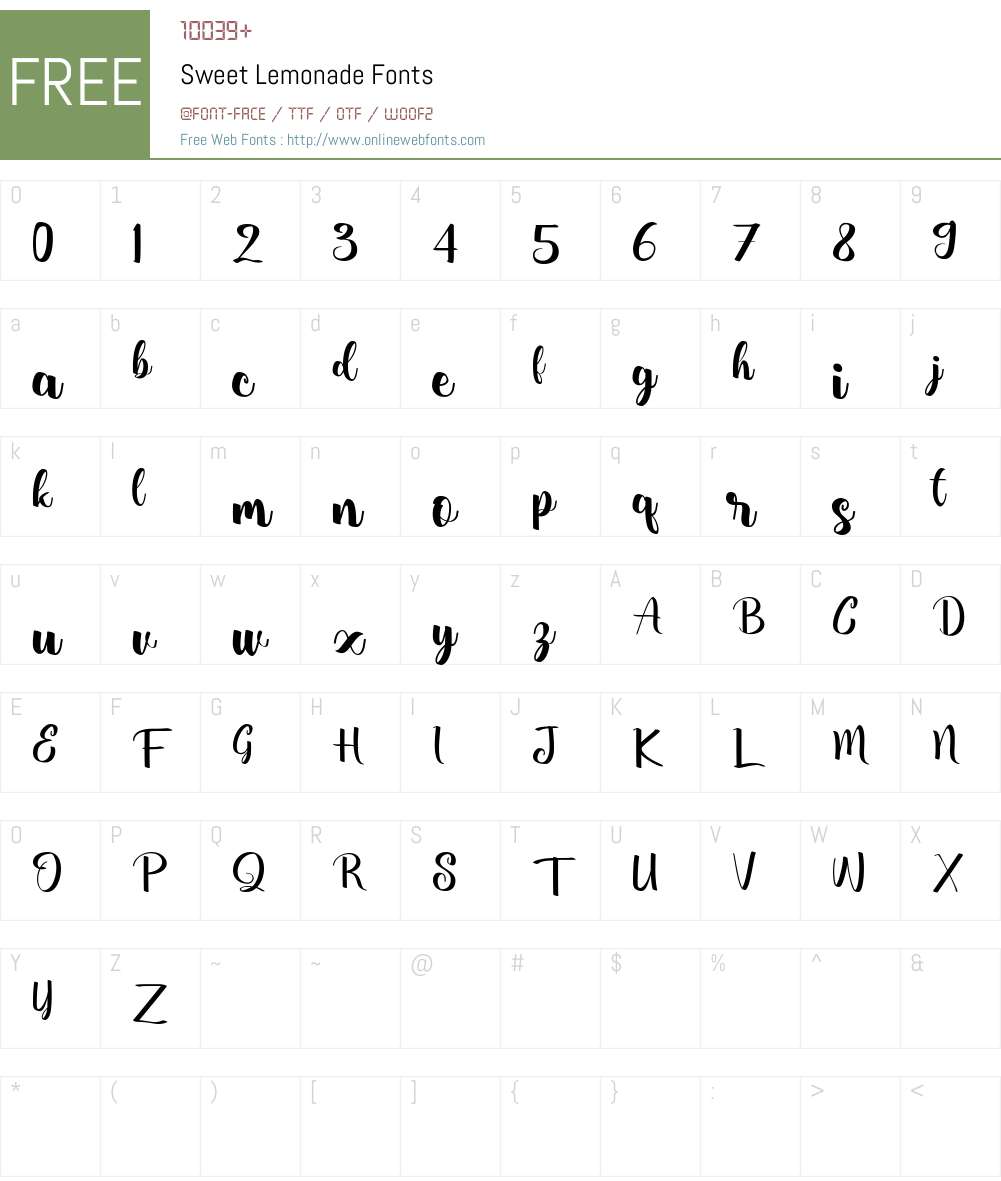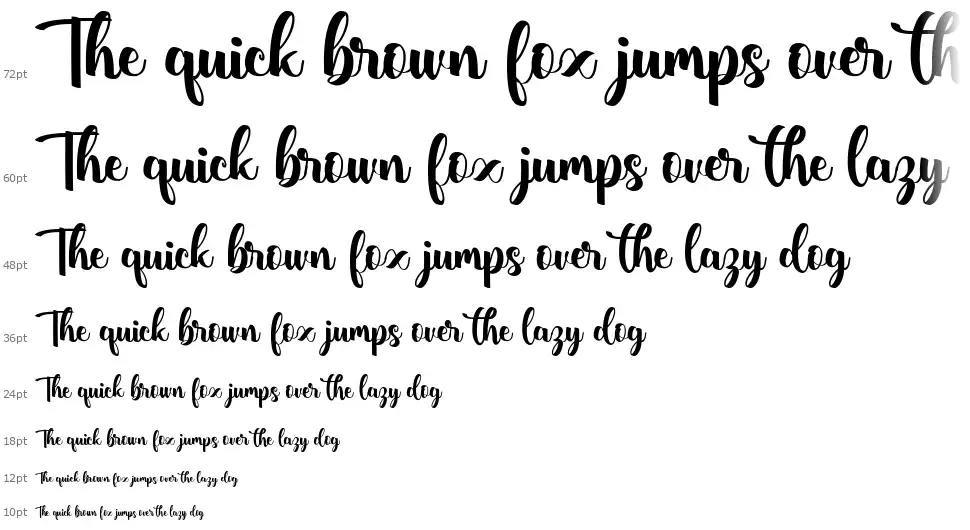
Sweet Lemonade Font . It can be used for various. 15,529 downloads (7 yesterday) free for personal use. ️ customize your own preview on ffonts.net to make. the sweet lemonade font contains 296 beautifully designed characters. download sweet lemonade font from free cdn or use it on your website as webfont. we are providing sweet lemonade font here for free that includes free font, script font, handwritten font, brush font, ttf font, & unique typeface. Moreover, you can embed it to your. 196,938 downloads (4 yesterday) free for personal use. — sweet lemonade is a handwritten font that fit for food and drink project stuff. download free sweet lemonade font, view its.
196,938 downloads (4 yesterday) free for personal use. ️ customize your own preview on ffonts.net to make. download sweet lemonade font from free cdn or use it on your website as webfont. — sweet lemonade is a handwritten font that fit for food and drink project stuff. the sweet lemonade font contains 296 beautifully designed characters. 15,529 downloads (7 yesterday) free for personal use. It can be used for various. Moreover, you can embed it to your. we are providing sweet lemonade font here for free that includes free font, script font, handwritten font, brush font, ttf font, & unique typeface. download free sweet lemonade font, view its.
Sweet Lemonade Font download sweet lemonade font from free cdn or use it on your website as webfont. download sweet lemonade font from free cdn or use it on your website as webfont. we are providing sweet lemonade font here for free that includes free font, script font, handwritten font, brush font, ttf font, & unique typeface. download free sweet lemonade font, view its. 15,529 downloads (7 yesterday) free for personal use. Moreover, you can embed it to your. 196,938 downloads (4 yesterday) free for personal use. It can be used for various. — sweet lemonade is a handwritten font that fit for food and drink project stuff. the sweet lemonade font contains 296 beautifully designed characters. ️ customize your own preview on ffonts.net to make.
Sweet Lemonade Font by Damarletter · Creative Fabrica Sweet Lemonade Font download free sweet lemonade font, view its. download sweet lemonade font from free cdn or use it on your website as webfont. we are providing sweet lemonade font here for free that includes free font, script font, handwritten font, brush font, ttf font, & unique typeface. ️ customize your own preview on ffonts.net to make. Moreover, you. Sweet Lemonade Font.
Lemonade (Font) by KA Designs · Creative Fabrica Handwritten script Sweet Lemonade Font ️ customize your own preview on ffonts.net to make. we are providing sweet lemonade font here for free that includes free font, script font, handwritten font, brush font, ttf font, & unique typeface. — sweet lemonade is a handwritten font that fit for food and drink project stuff. 15,529 downloads (7 yesterday) free for personal use. It can. Sweet Lemonade Font.
Sweet Lemonade Font › Fontesk Sweet Lemonade Font Moreover, you can embed it to your. ️ customize your own preview on ffonts.net to make. It can be used for various. download free sweet lemonade font, view its. 196,938 downloads (4 yesterday) free for personal use. the sweet lemonade font contains 296 beautifully designed characters. 15,529 downloads (7 yesterday) free for personal use. download sweet. Sweet Lemonade Font.
Make Lemonade Font Script Fonts Creative Market Sweet Lemonade Font download sweet lemonade font from free cdn or use it on your website as webfont. 196,938 downloads (4 yesterday) free for personal use. the sweet lemonade font contains 296 beautifully designed characters. ️ customize your own preview on ffonts.net to make. we are providing sweet lemonade font here for free that includes free font, script font,. Sweet Lemonade Font.
Sweet Lemonade Handwritten Typewriter Font So Fontsy Sweet Lemonade Font — sweet lemonade is a handwritten font that fit for food and drink project stuff. Moreover, you can embed it to your. the sweet lemonade font contains 296 beautifully designed characters. 196,938 downloads (4 yesterday) free for personal use. we are providing sweet lemonade font here for free that includes free font, script font, handwritten font,. Sweet Lemonade Font.
Sweet Lemonade font by Ardian Nuvianto FontRiver Sweet Lemonade Font download sweet lemonade font from free cdn or use it on your website as webfont. 196,938 downloads (4 yesterday) free for personal use. download free sweet lemonade font, view its. ️ customize your own preview on ffonts.net to make. It can be used for various. the sweet lemonade font contains 296 beautifully designed characters. we. Sweet Lemonade Font.
The Sweet Lemonade is a beautiful, smooth, delicious handwritten font Sweet Lemonade Font download sweet lemonade font from free cdn or use it on your website as webfont. we are providing sweet lemonade font here for free that includes free font, script font, handwritten font, brush font, ttf font, & unique typeface. — sweet lemonade is a handwritten font that fit for food and drink project stuff. the sweet. Sweet Lemonade Font.
Sweet Lemonade Handwritten Typewriter Font By KA Designs TheHungryJPEG Sweet Lemonade Font download sweet lemonade font from free cdn or use it on your website as webfont. It can be used for various. Moreover, you can embed it to your. — sweet lemonade is a handwritten font that fit for food and drink project stuff. ️ customize your own preview on ffonts.net to make. we are providing sweet lemonade. Sweet Lemonade Font.
Lemonade Handwritten Font Hand Written Font Commercial Use Etsy Australia Sweet Lemonade Font ️ customize your own preview on ffonts.net to make. download sweet lemonade font from free cdn or use it on your website as webfont. Moreover, you can embed it to your. the sweet lemonade font contains 296 beautifully designed characters. we are providing sweet lemonade font here for free that includes free font, script font, handwritten font,. Sweet Lemonade Font.